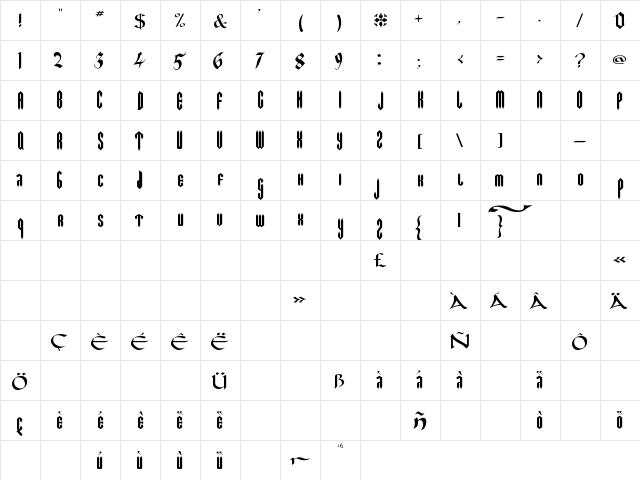
Pseudoslave XVIII regular
Design Context for Pseudoslave XVIII Typeface
Pseudoslave XVIII is a composed and adaptable typeface that performs quietly and consistently across a wide range of design contexts.